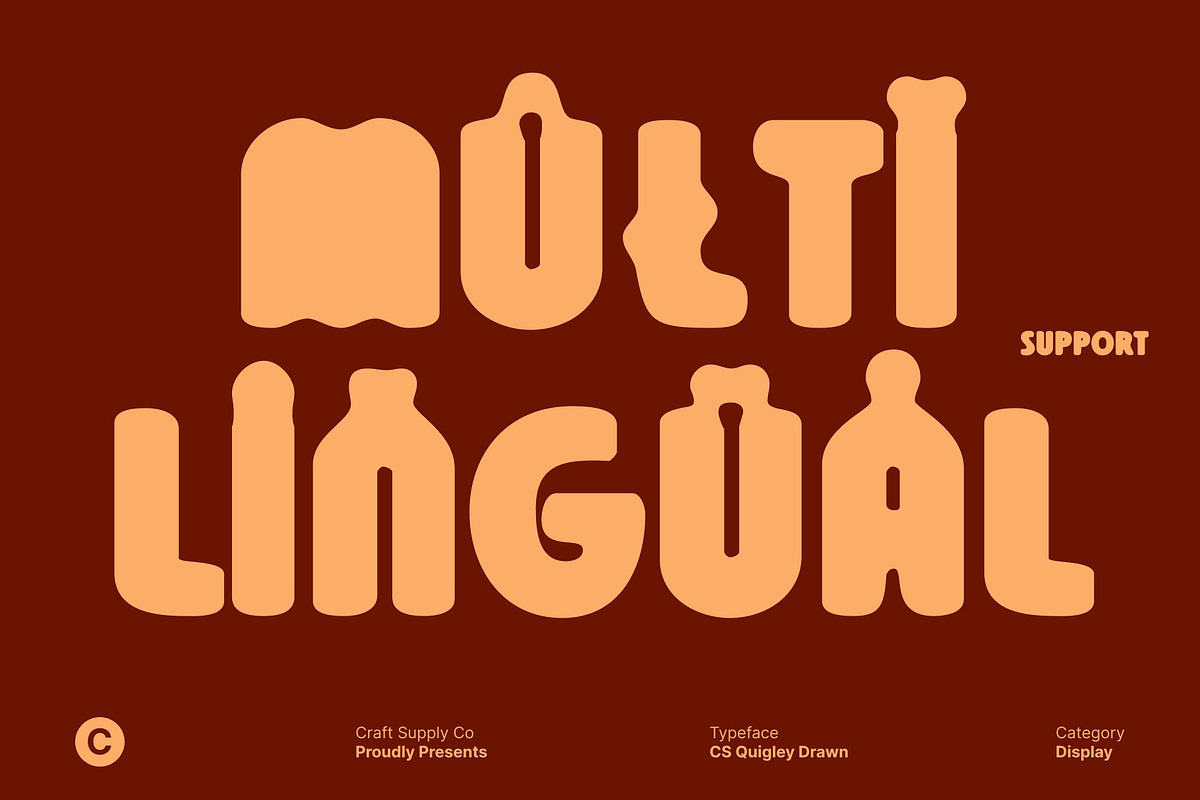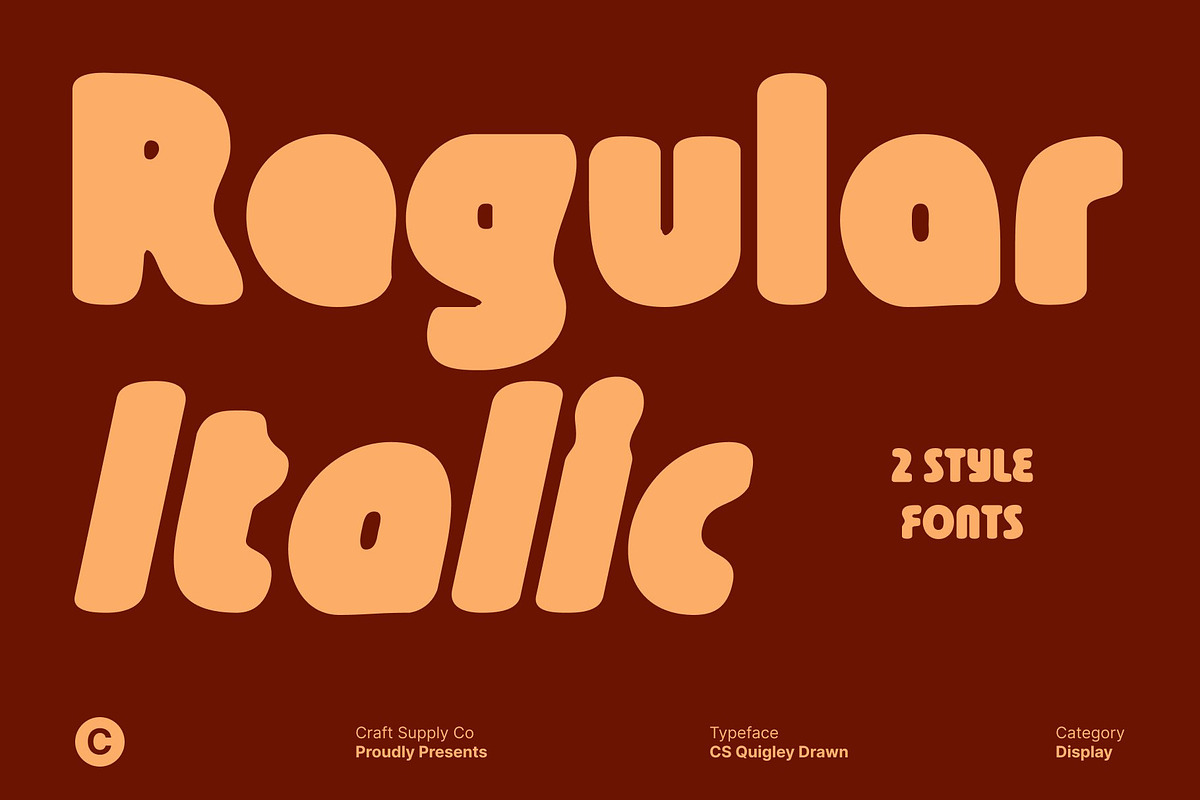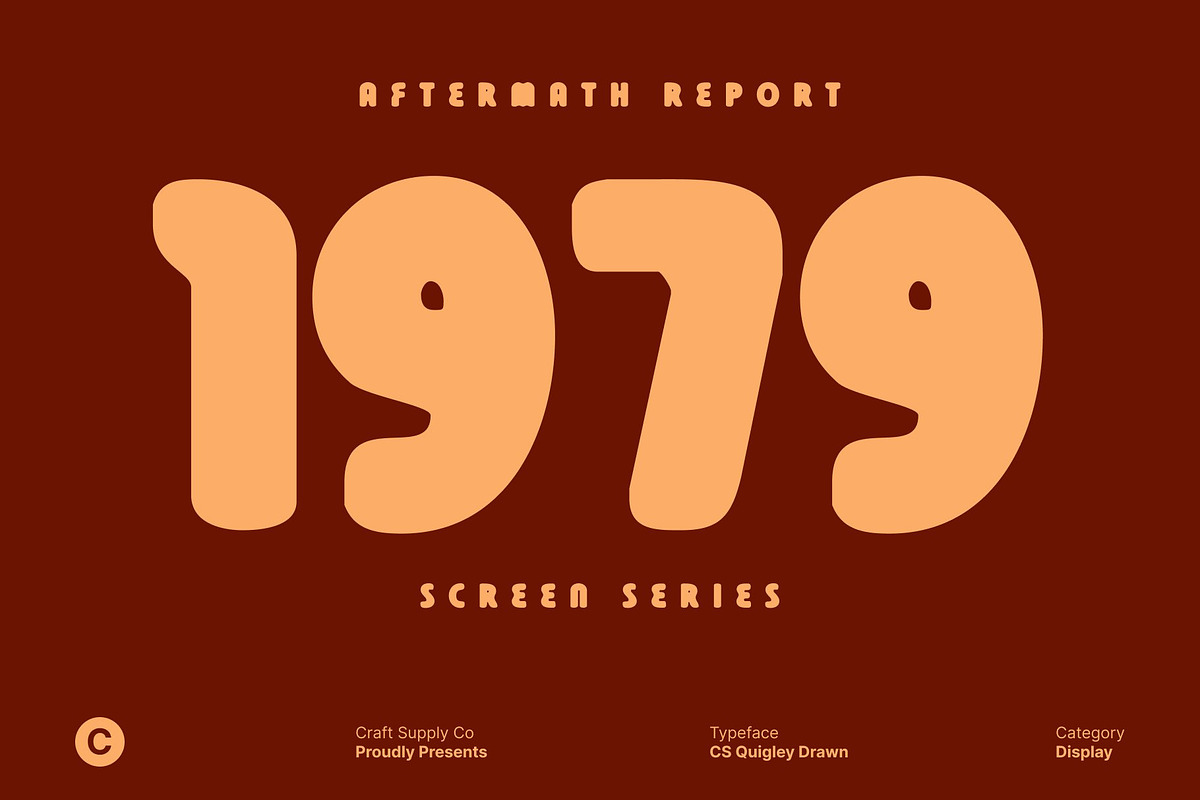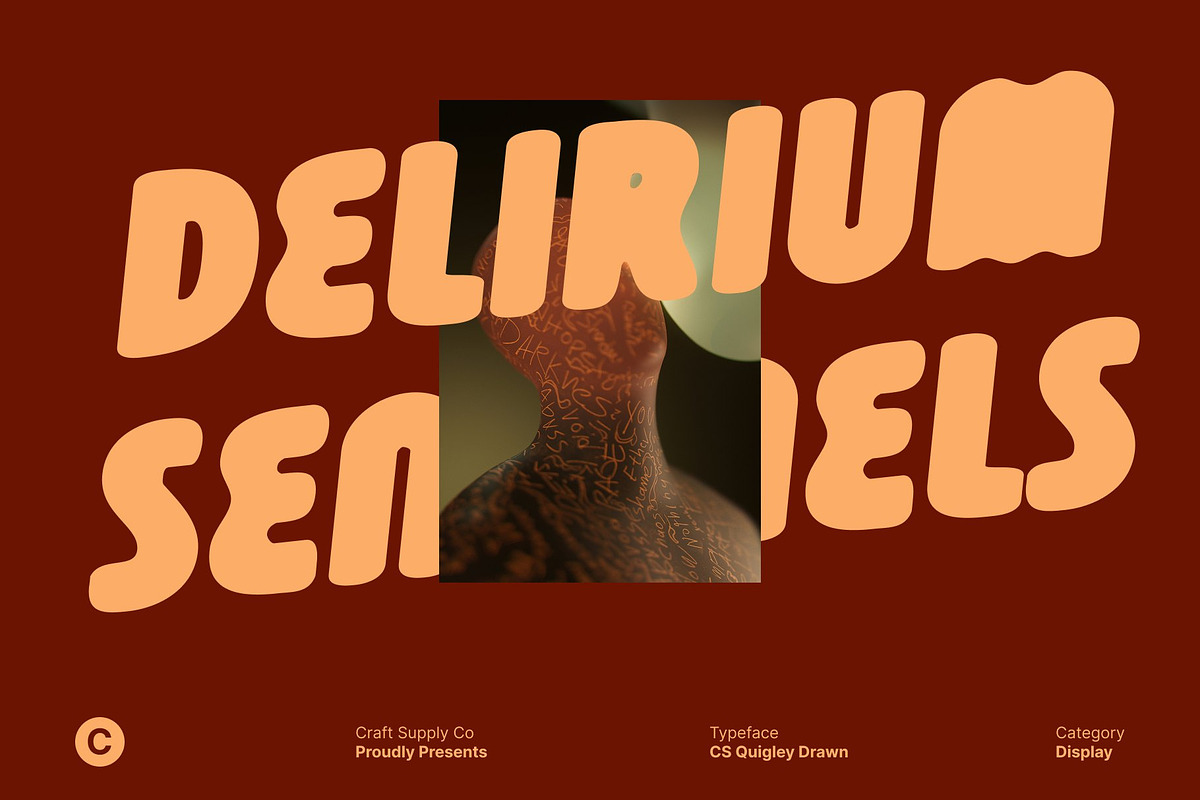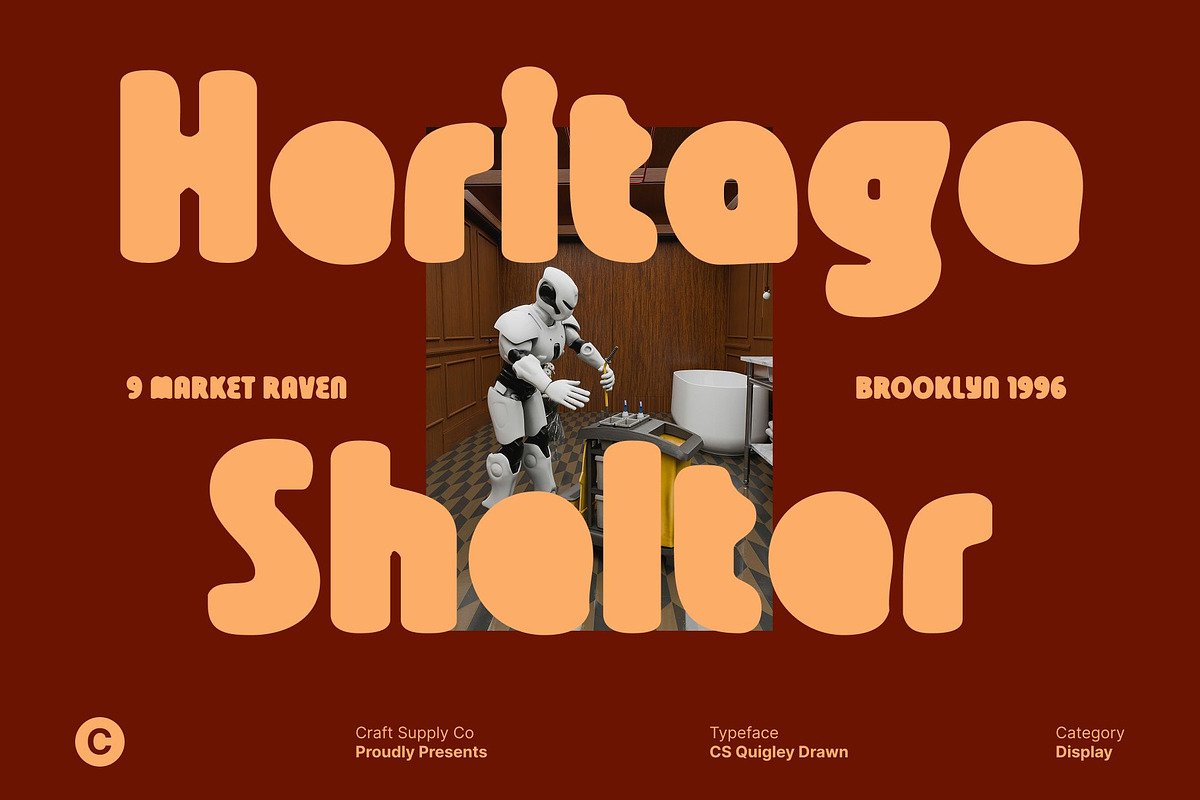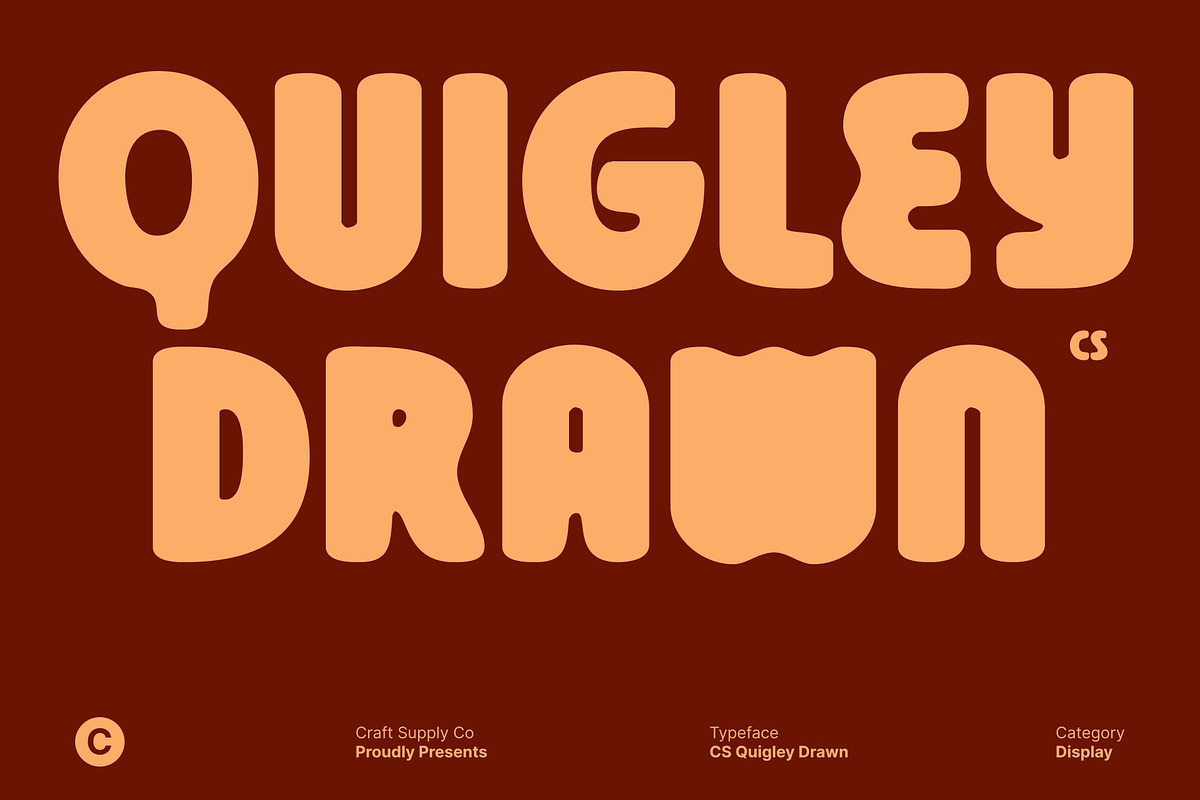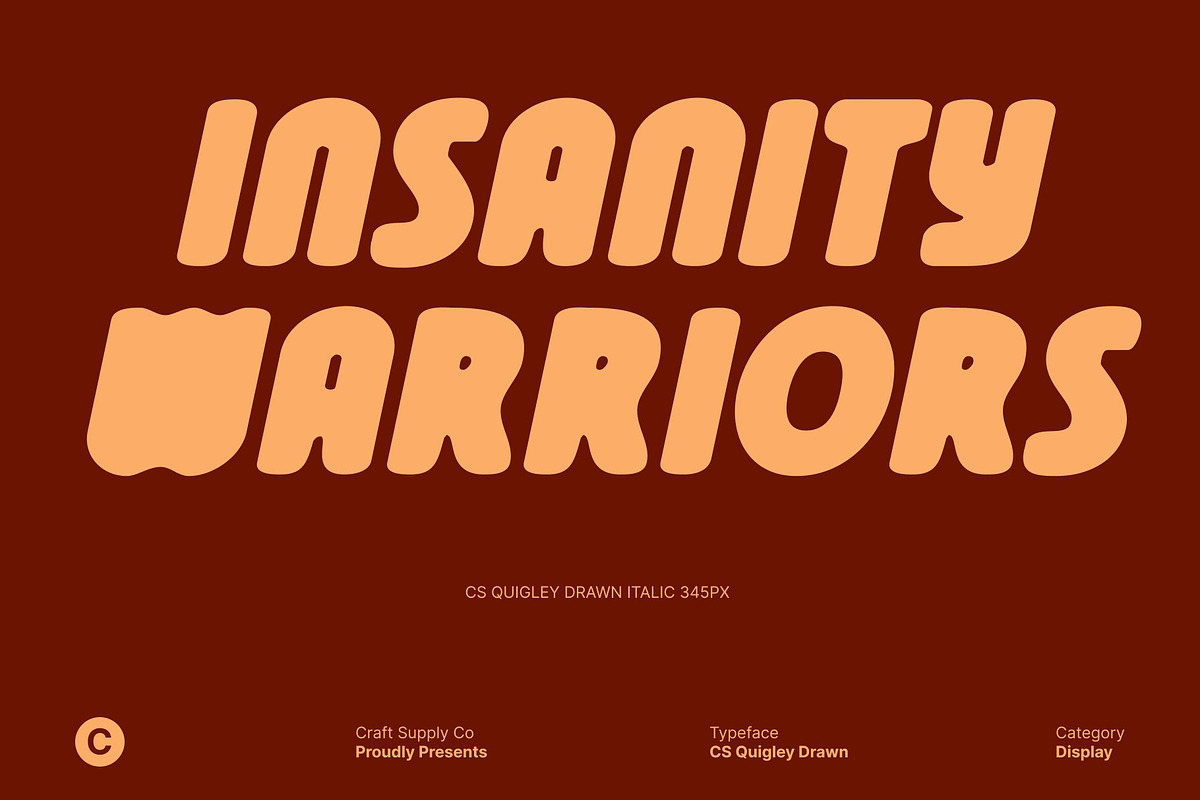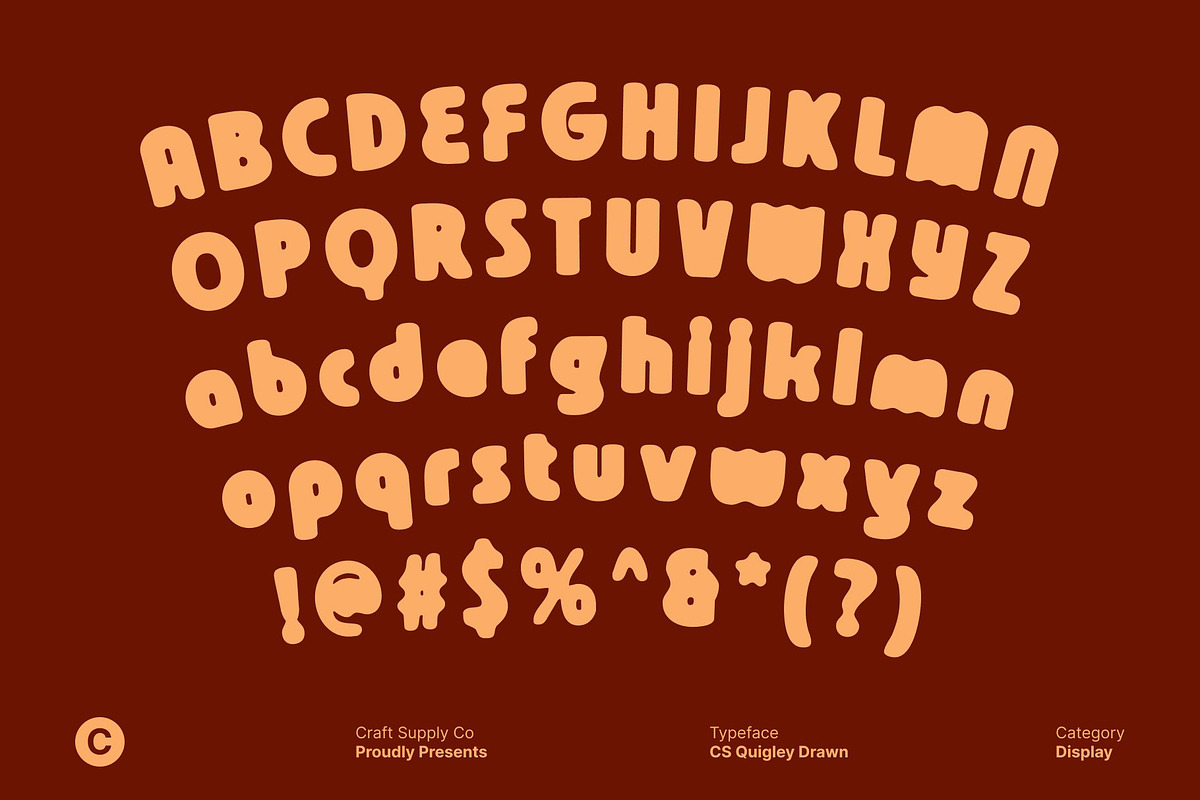
CS Quigley Drawn
CS Quigley Drawn – Bold Display Font with Handcrafted Expression
Powerful Bold Structure with Confident Presence This is a bold display font designed to make a clear and confident statement. Its strong weight and solid construction give each letter a commanding presence, ensuring high visibility and impact across display applications. The font’s powerful forms project confidence and authority, making it an excellent choice for designs that need to stand out and communicate strength at first glance.
Drawn Effect for Artistic Texture and Depth The drawn effect adds an expressive, handcrafted layer that elevates beyond a standard bold typeface. Subtle texture and organic line variations introduce a handmade quality, giving the font a more personal and artistic feel. This texture adds depth and character, softening the heaviness of the bold strokes while enhancing visual interest.
Expressive Character with Visual Impact This font balances boldness with expression, creating typography that feels energetic and engaging. Its solid shapes ensure clarity, while the artistic texture adds movement and emotion to the lettering. This combination allows the font to deliver strong visual impact without feeling rigid or mechanical, making it suitable for creative and expressive design contexts.
Ideal for Headlines, Posters, and Branding Designed for impactful use, performs exceptionally well in headlines, posters, logos, and branding materials. Its confident structure and handcrafted texture help establish a memorable typographic identity that draws attention and leaves a lasting impression.